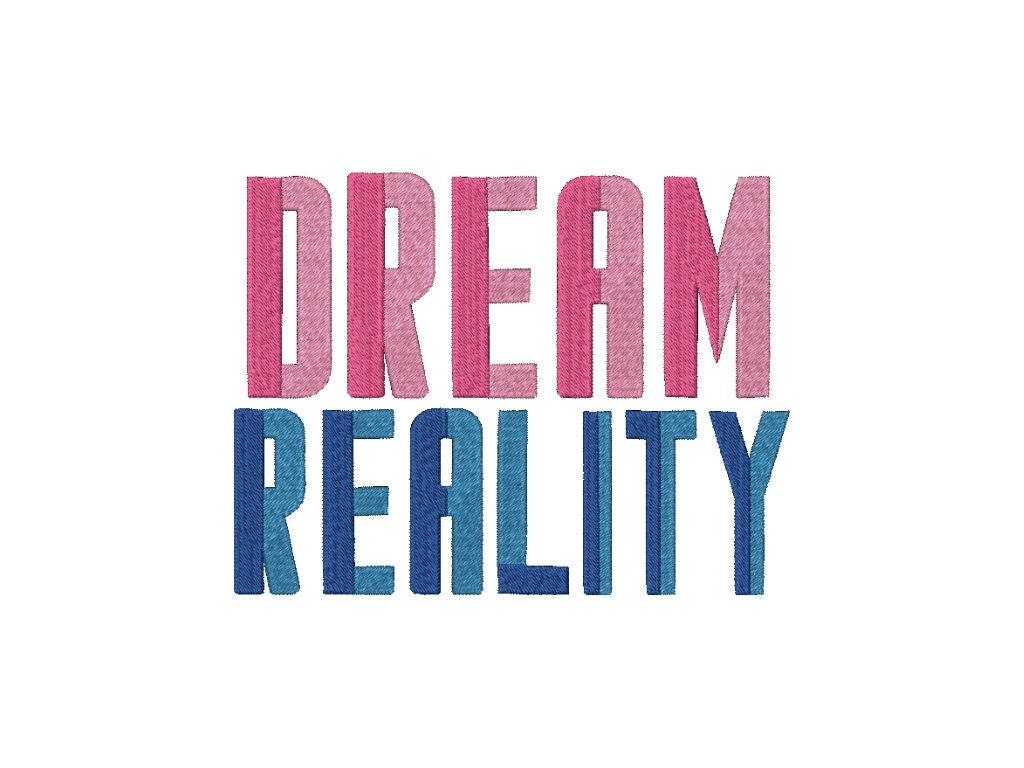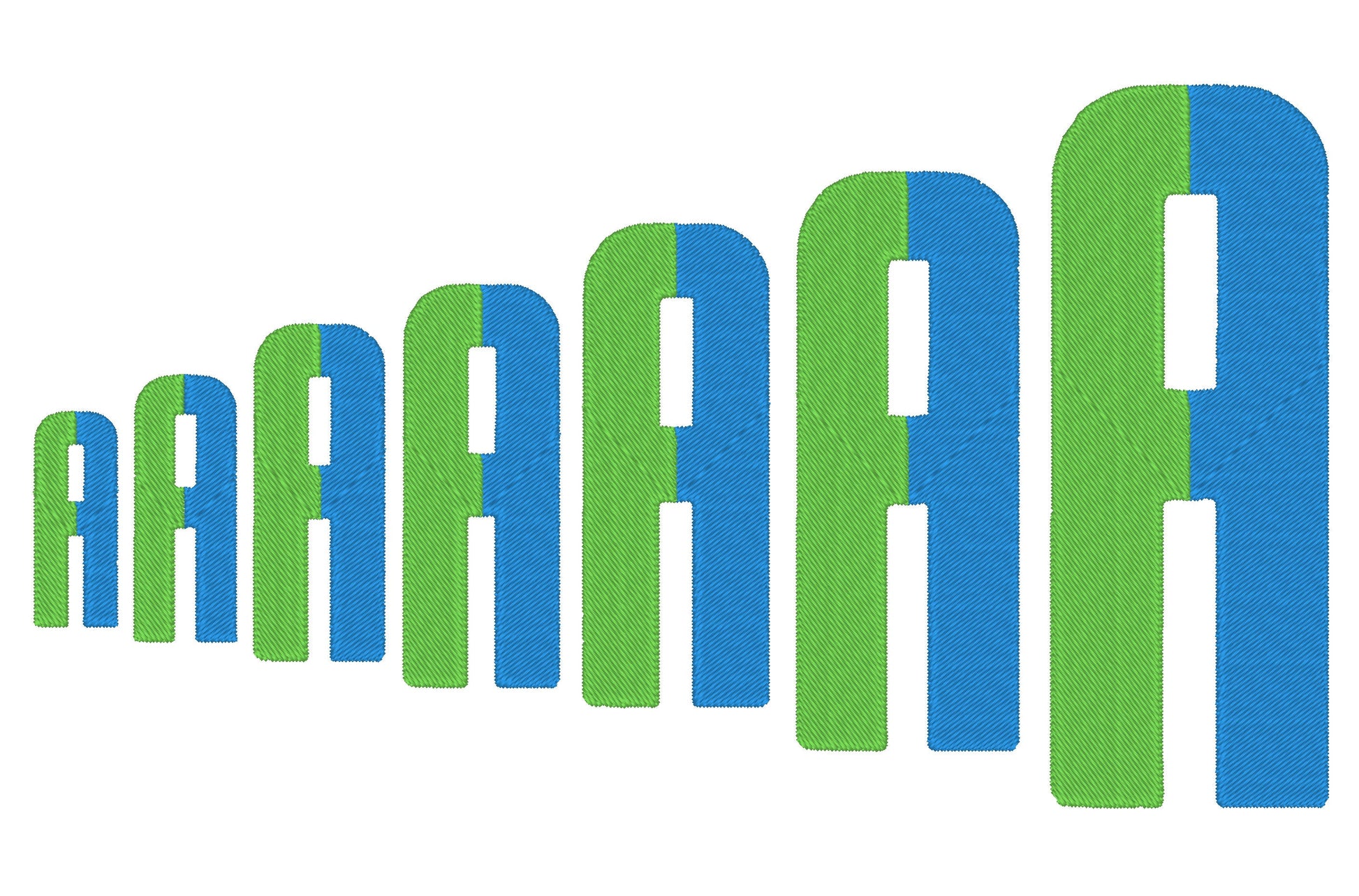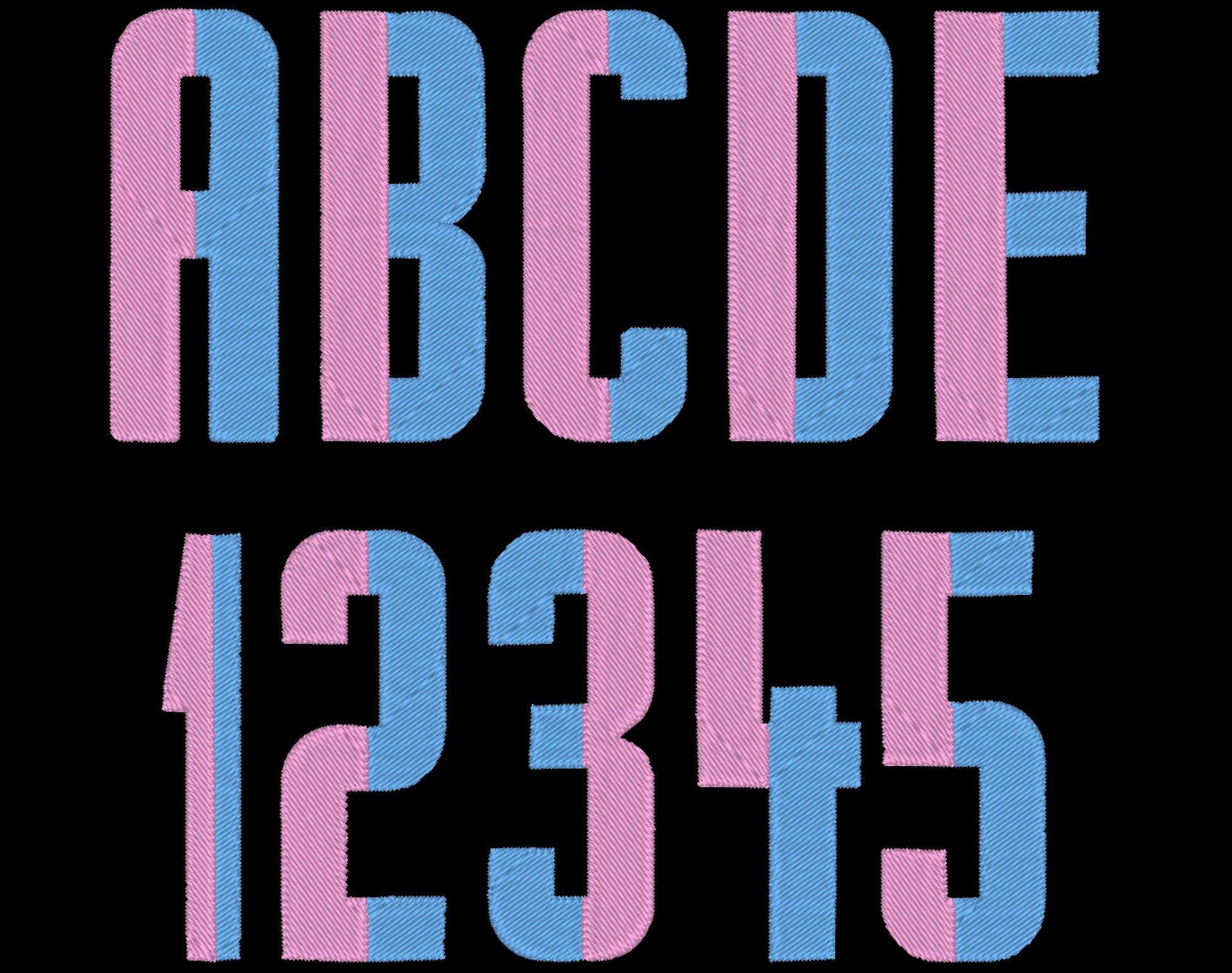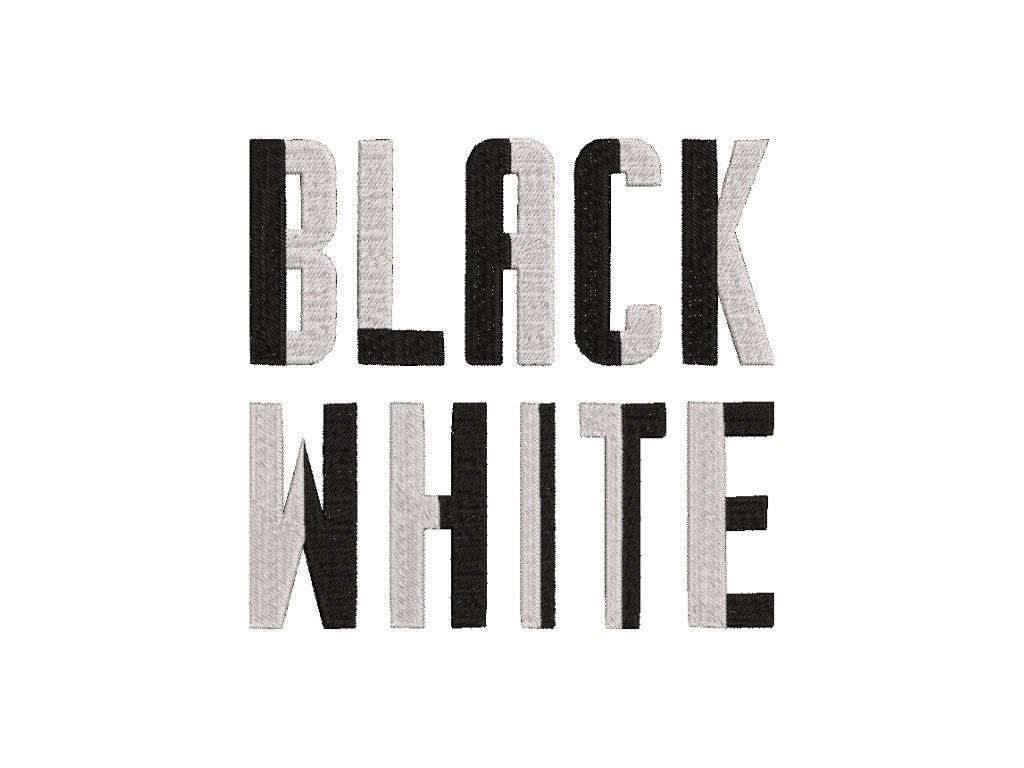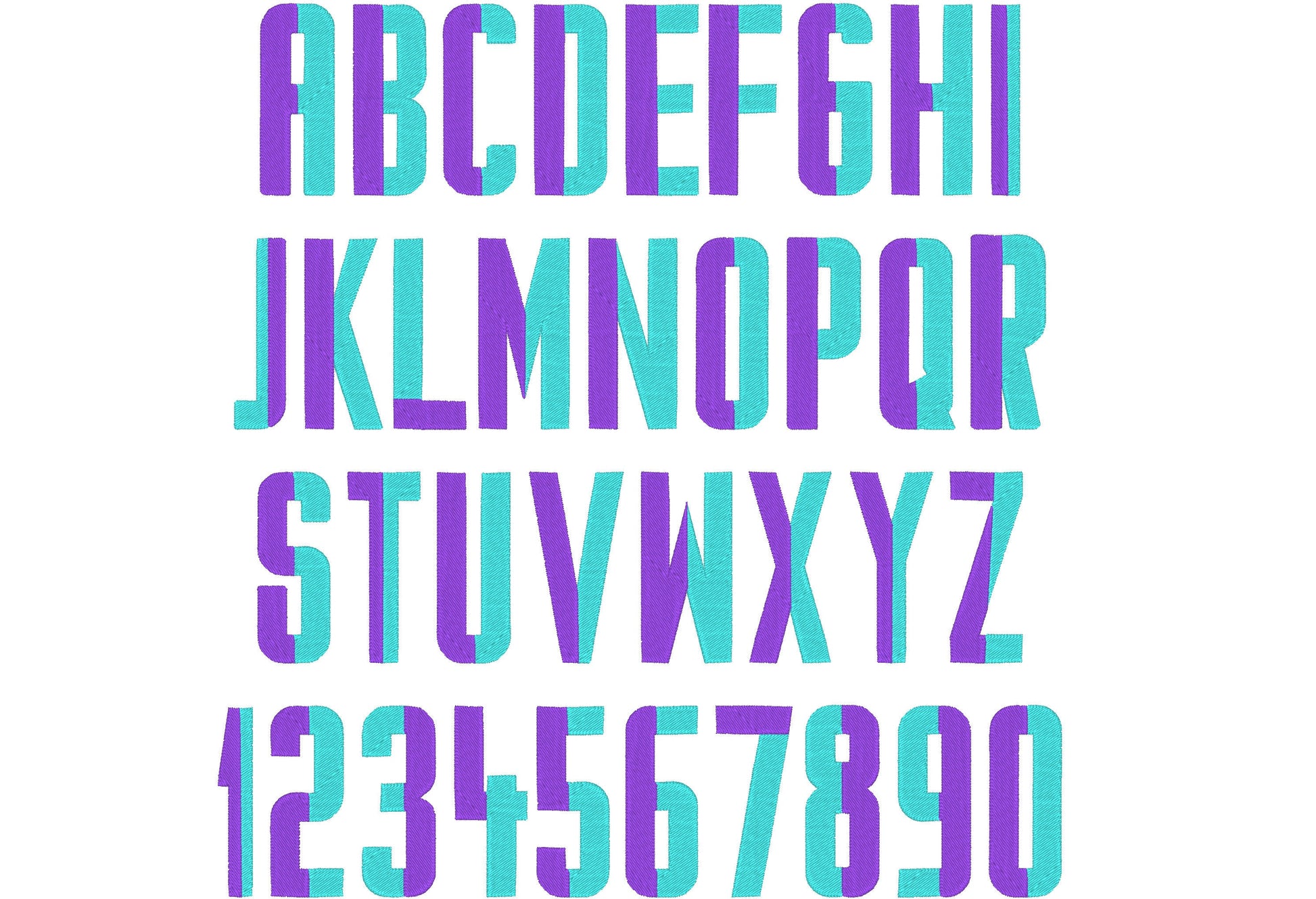
Or click to open the linkA narrow, split fill stitch font in two colors. Bold and modern for names, monograms, team shirts and bags.
The letters come in seven sizes: 1.5, 1.7, 2, 2.5, 3, 4 and 5 inches. Each letter is split into two fill stitch parts, one for each thread color. Includes uppercase letters A to Z and numbers 1 to 9.